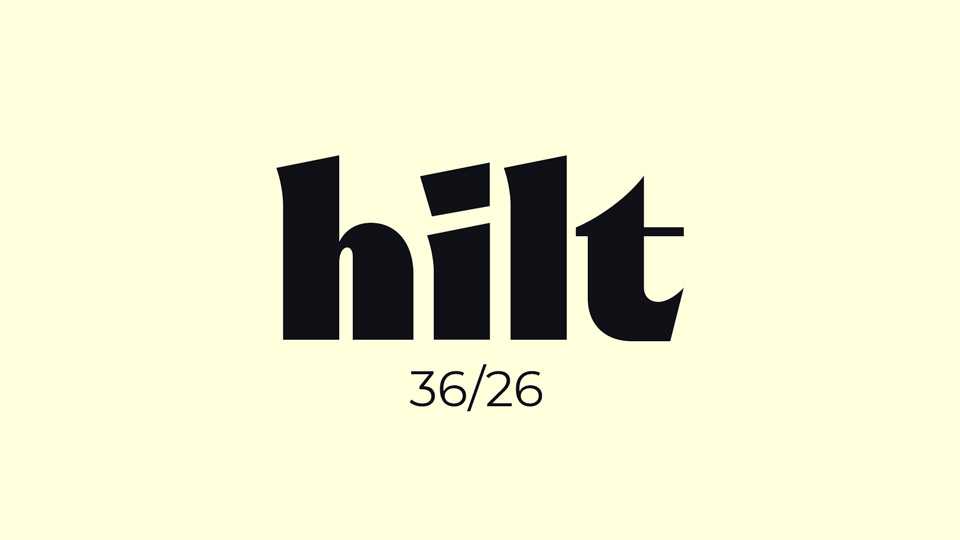
Download Hilt font, a high contrast display typeface inspired by a drawing trends of needle-like points, infinitely sharp letterforms. Great for headlines, posters, short text blocks.
Designer: Justin Penner